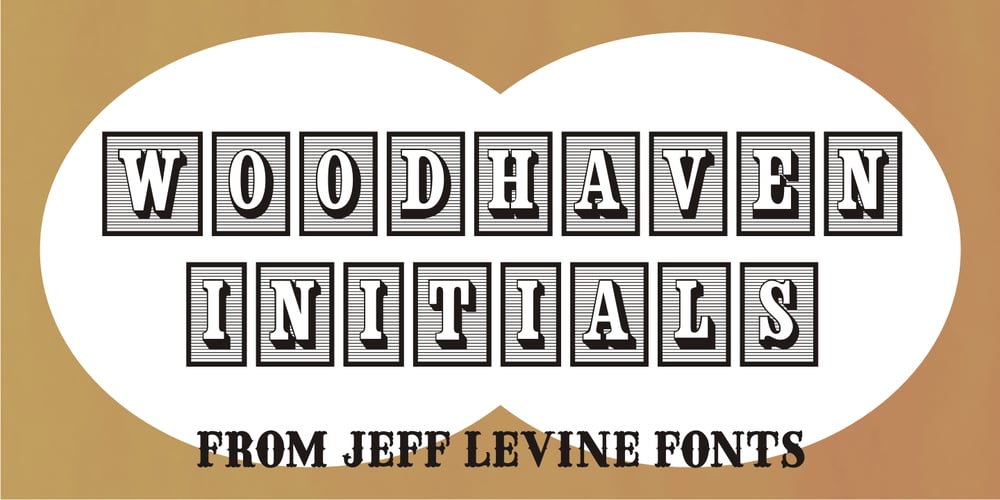
Woodhaven Initials JNL Font Family was designed by Jeff Levine and published by Jeff Levine. Woodhaven Initials JNL contains 1 styles and family package options. Woodhaven Initials JNL were designed using an outline cast shadow wood type set against a rectangle with horizontal “engraving” lines to add background texture to the initials. An ampersand is on the corresponding keystroke, and a blank rectangle is on the period key.